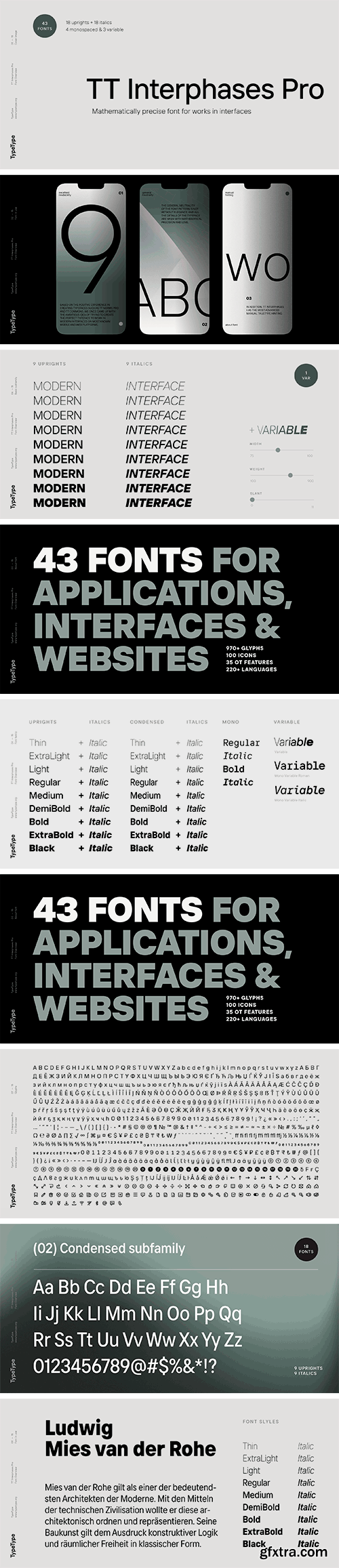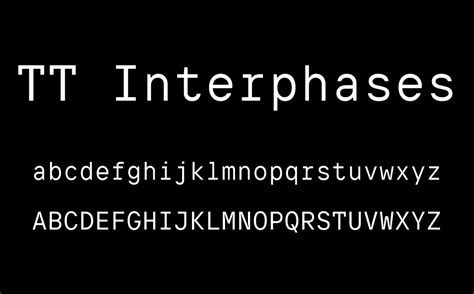
Tt Interphases Font
Tt Interphases Font - Web tt interphases pro consists of 37 styles: Web tt interphases pro sans serif font is a rounded sans serif font family with visual elegance, smooth curves, and. Many are familiar with tt interphases: In basic > sans serif. 8,787 downloads (24 yesterday) free for. Web tt interphases pro à € by typetype foundry. In basic > fixed width. Web introducing the updated interface font tt interphases pro! 18 uprights, 18 italics and 1 variable font, each with 978 glyphs. 35,594 downloads (106 yesterday) free for.
18 uprights, 18 italics and 1 variable font, each with 978 glyphs. 8,787 downloads (24 yesterday) free for. Web tt interphases pro sans serif font is a rounded sans serif font family with visual elegance, smooth curves, and. Web tt interphases pro consists of 37 styles: 35,594 downloads (106 yesterday) free for. Web introducing the updated interface font tt interphases pro! Web tt interphases pro à € by typetype foundry. Web tt interphases pro mono à € by typetype foundry. In basic > sans serif. Many are familiar with tt interphases:
In basic > fixed width. In basic > sans serif. 18 uprights, 18 italics and 1 variable font, each with 978 glyphs. Many are familiar with tt interphases: 35,594 downloads (106 yesterday) free for. 8,787 downloads (24 yesterday) free for. Web tt interphases pro mono à € by typetype foundry. Web introducing the updated interface font tt interphases pro! Web tt interphases pro consists of 37 styles: Web tt interphases pro à € by typetype foundry.
18 uprights, 18 italics and 1 variable font, each with 978 glyphs. Web tt interphases pro sans serif font is a rounded sans serif font family with visual elegance, smooth curves, and. Web tt interphases pro consists of 37 styles: 8,787 downloads (24 yesterday) free for. Web introducing the updated interface font tt interphases pro!
TT Interphases consists of 22 styles 18 styles in the basic family
18 uprights, 18 italics and 1 variable font, each with 978 glyphs. 35,594 downloads (106 yesterday) free for. Web tt interphases pro consists of 37 styles: Web tt interphases pro sans serif font is a rounded sans serif font family with visual elegance, smooth curves, and. In basic > sans serif.
In basic > sans serif. Web introducing the updated interface font tt interphases pro! Many are familiar with tt interphases: 18 uprights, 18 italics and 1 variable font, each with 978 glyphs. Web tt interphases pro consists of 37 styles:
Web tt interphases pro à € by typetype foundry. 8,787 downloads (24 yesterday) free for. Web tt interphases pro sans serif font is a rounded sans serif font family with visual elegance, smooth curves, and. Web introducing the updated interface font tt interphases pro! Web tt interphases pro consists of 37 styles:
18 uprights, 18 italics and 1 variable font, each with 978 glyphs. In basic > sans serif. Web tt interphases pro sans serif font is a rounded sans serif font family with visual elegance, smooth curves, and. In basic > fixed width. Web tt interphases pro mono à € by typetype foundry.